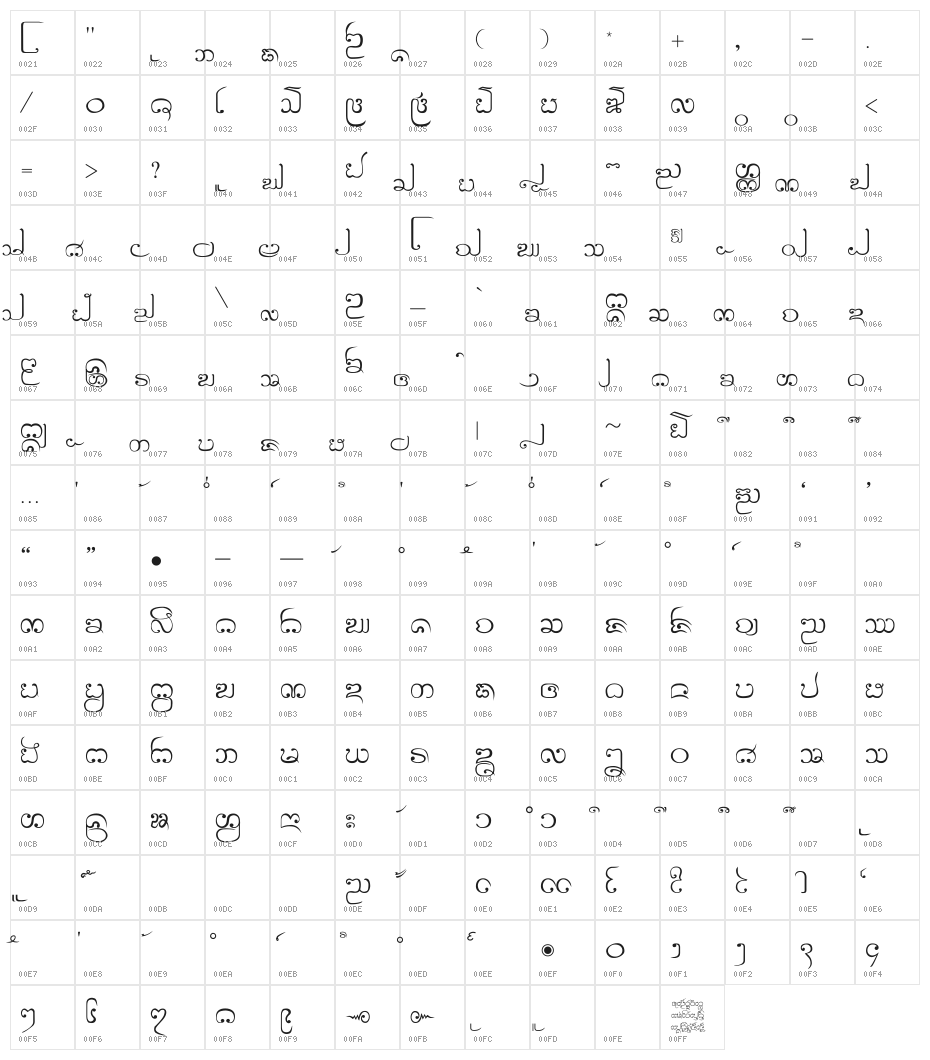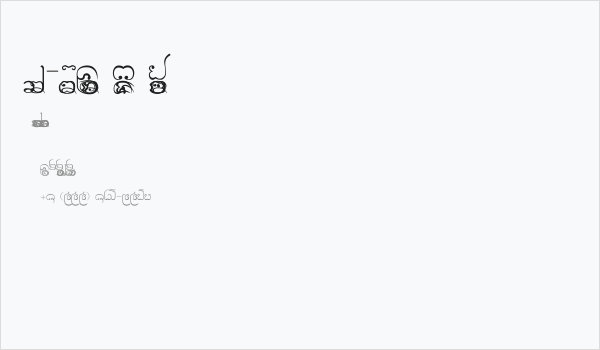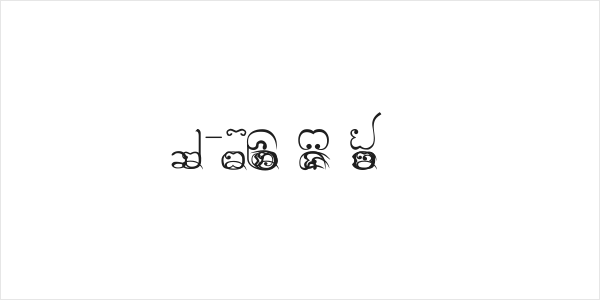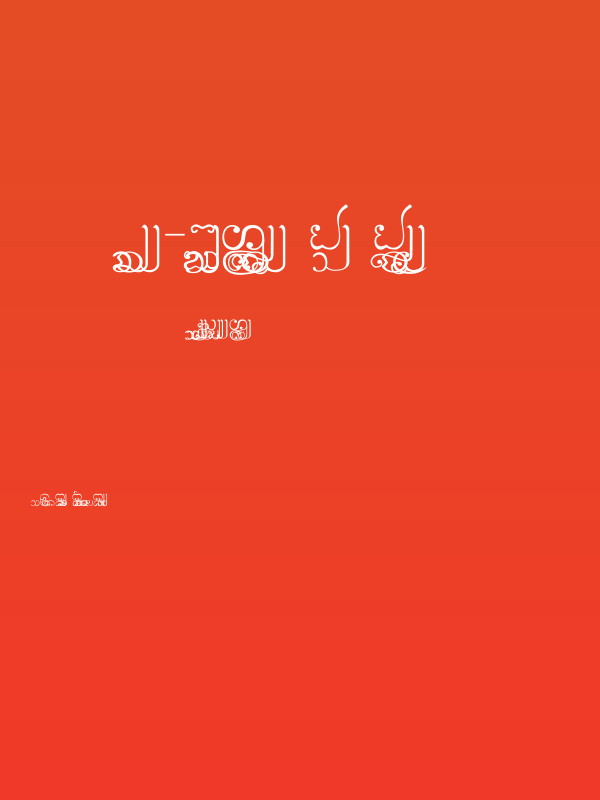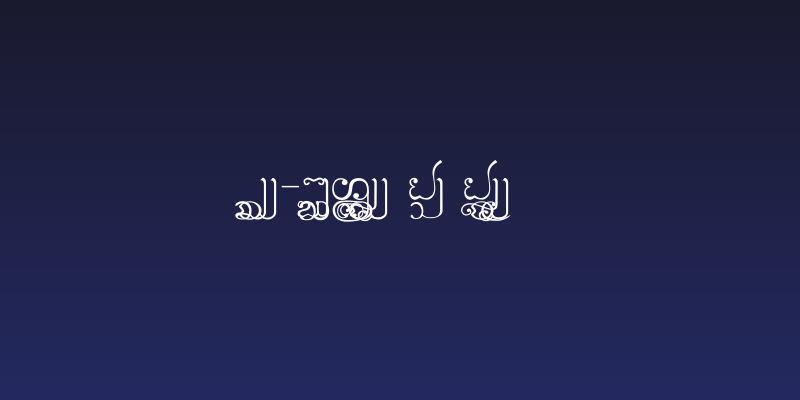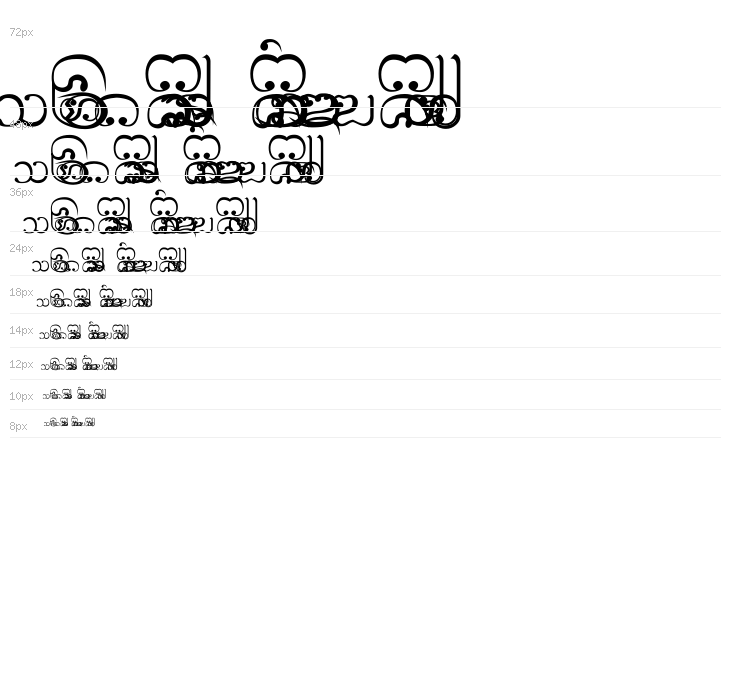
Cr-Father by Berm Font
Cr-Father by Berm Description
Highly decorative and complex script with overlapping, swirling strokes and intricate shapes, creating a dense and ornamental appearance. The letterforms are elaborate, with exaggerated curves and loops, making legibility secondary to visual impact.
Overall StyleDecorative, Ornate, Artistic
Use CaseLogos, Posters, Display titles
Proposed ProjectsPosters, album covers, fantasy or mythological themes, artistic branding, decorative headings.